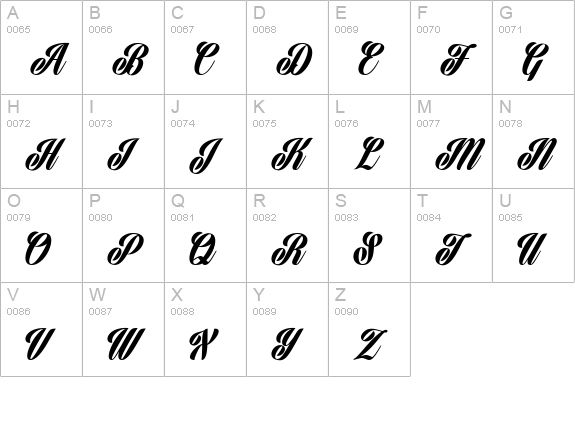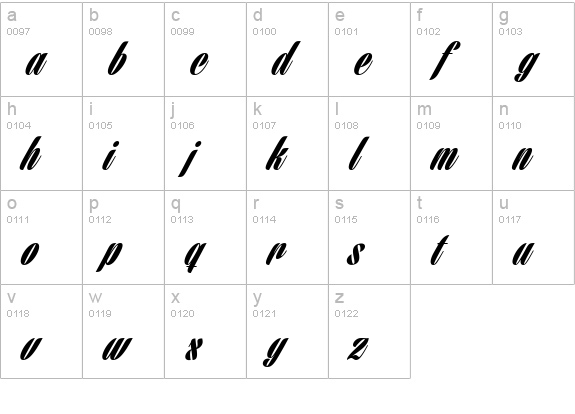
Harbell Personal Use Only Font Details
Introducing Harbell Personal Use Only font - a stunning and stylish typeface that is perfect for adding a touch of elegance to any design project. This versatile font exudes a sense of sophistication and refinement, making it ideal for creating eye-catching logos, branding materials, invitations, and more. Harbell Personal Use Only font is meticulously crafted with intricate details and carefully designed shapes, resulting in a truly unique and captivating typeface. Its sleek and modern appearance is sure to leave a lasting impression on your audience, making it a must-have in your font collection. One of the standout features of Harbell Personal Use Only font is that it is completely free to download. That's right, this exceptional font is freely available at FontsMarket.com, allowing you to access its beauty and versatility without any cost involved. Whether you're a professional designer or a creative enthusiast, this free font offers you the opportunity to elevate your projects with its stunning aesthetics. With Harbell Personal Use Only font, the possibilities are endless. Its wide range of characters and glyphs allows you to create visually appealing compositions with ease. Whether you're looking to design a striking headline, a captivating poster, or a memorable social media post, this font will effortlessly elevate your designs to new heights. Not only does Harbell Personal Use Only font offer visual appeal, but it also ensures readability and legibility, making it suitable for various platforms and mediums. Its clean lines and well-defined letterforms ensure that your message is conveyed with clarity and precision, even at smaller sizes. Embrace the beauty of Harbell Personal Use Only font and let its elegance and versatility inspire your creative endeavors. Download this remarkable font for free at FontsMarket.com and unlock a world of design possibilities. So go ahead and embark on your creative journey with Harbell Personal Use Only font - the perfect companion for all your personal projects.